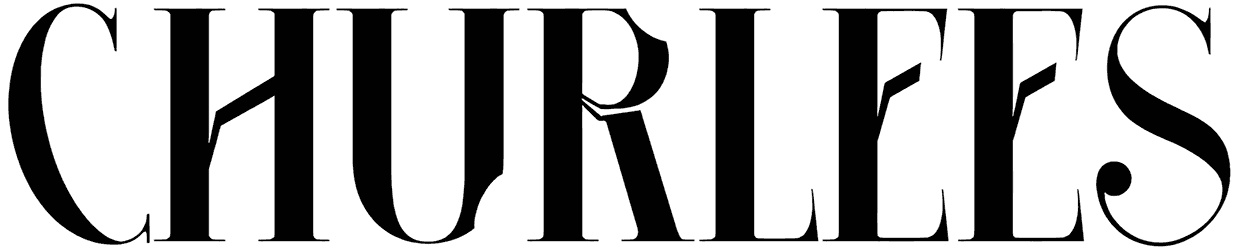
Churlees Font
Churlees font brings the easy confidence of retro signage into modern layouts, with bold shapes that feel playful, familiar, and full of character. Its vintage rhythm works especially well for short names and headlines, giving them the charm of old shopfronts, diner menus, and colorful packaging without making the design feel dated.
Use Churlees font for café branding, apparel graphics, poster titles, product labels, music artwork, or nostalgic social campaigns. Pair this retro font with mustard yellow, faded red, teal, cream, halftone textures, and simple badge layouts to create a look that feels warm, lively, and authentically retro.